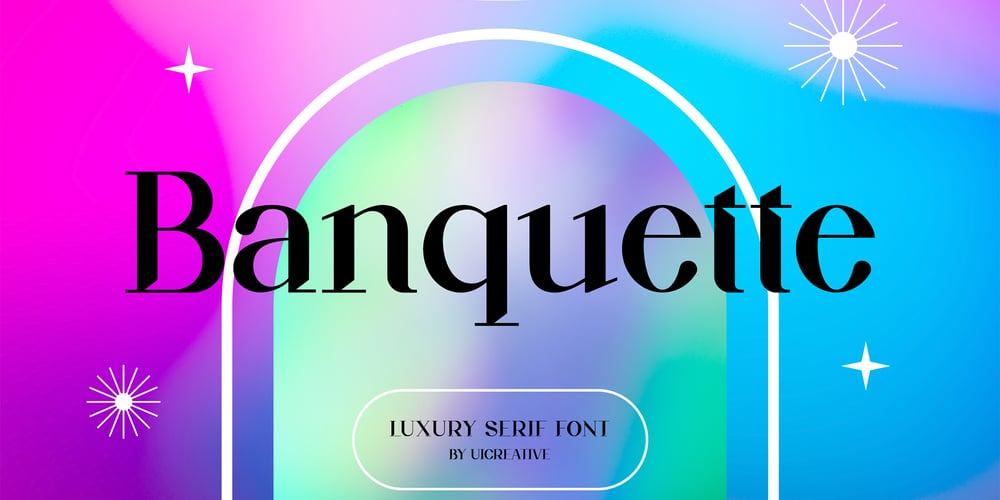
Banquette
Banquette font
Banquette Font Family was designed by Hero and published by UICreative. Banquette contains 1 styles and family package options. Introducing our new product the name Banquette Luxury Serif Font. Modern Serif font that feels beautiful classy, elegant, and modern. This font is perfectly suited for a wide variety of projects, such as signature, stationery, logo, wedding, typography quotes, magazine or book covers, website headers, clothing, branding, packaging design, and more. Also for fashion-related branding or editorial design and displays both masculine and feminine qualities.